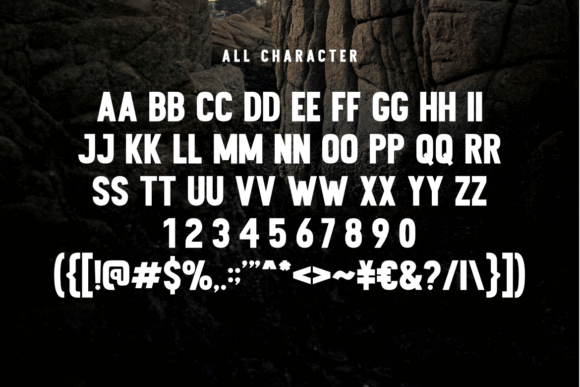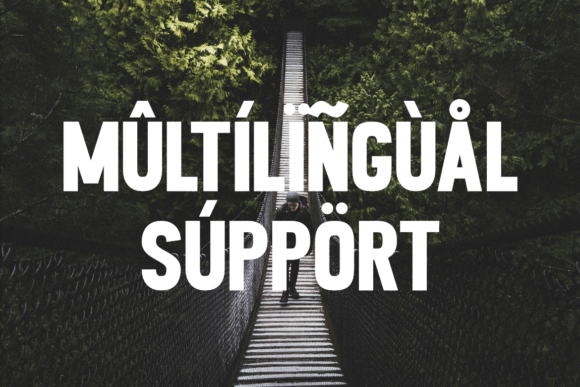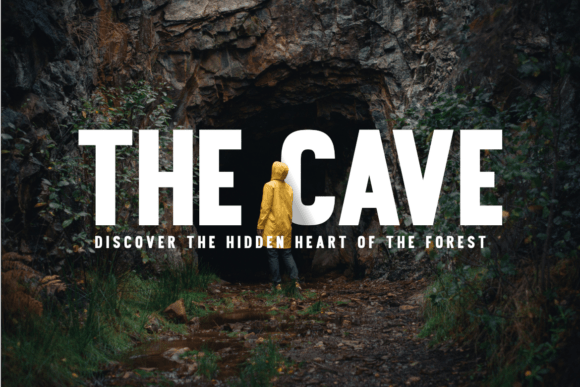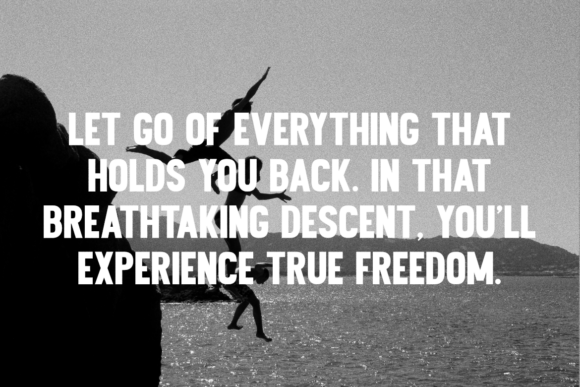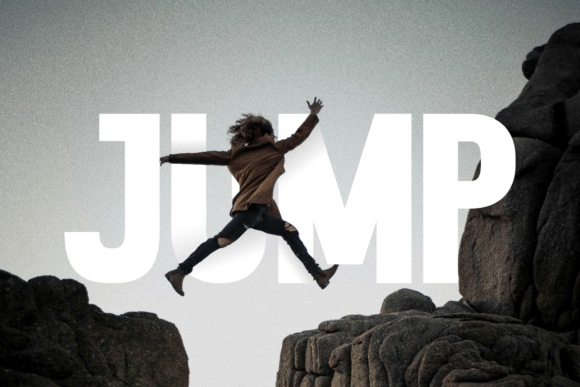
The Power of Courage: Unleashing a Modern Sans Serif Font
I’ll never forget the design project that pushed me to discover the Courage Font. I was working on a branding campaign for a fitness brand, and my client requested a bold, attention-grabbing font that would convey strength and dynamism. As I scoured the internet for the perfect typeface, I stumbled upon Courage, and it instantly resonated with me. Its robust letterforms and unwavering stability made it the perfect fit for the project. In this article, I’ll share my experience with Courage, its features, and how to make the most of it in your designs.
An Honest Review of Courage Font
What I Love About Courage ✨
- ✅ Perfect for bold statements: Courage is designed to deliver a powerful statement and command attention in all your design projects.
- ✅ Robust and dynamic: Its letterforms convey a sense of dynamism and unwavering stability, making it ideal for designs that require strength and impact.
- ✅ Versatile: Courage can be used for a wide range of design projects, from logos and posters to website headlines and social media graphics.
- ✅ Easy to read: Despite its bold presence, Courage remains highly legible, even at smaller font sizes.
- ⚠️ Limited font weights: Courage currently offers only a few font weights, which might limit its use in certain design projects that require a more subtle approach.
- ⚠️ Glyph limitations: While Courage has an impressive range of glyphs, it might not have every special character or symbol you need.
The Backstory of Courage Font
Courage Font was designed with the goal of creating a modern sans serif font that embodies strength, dynamism, and confidence. The designer aimed to craft a typeface that would inspire creativity and boldness in design projects. While the designer’s identity remains anonymous, their passion for typography and design is evident in every detail of Courage Font.
| Font Name | Courage Font |
| Author | Almairatype Studio |
Q: What is Courage Font best suited for?
A: Courage Font is perfect for designs that require strength, impact, and a bold presence, such as logos, posters, website headlines, and social media graphics.
Q: Is Courage Font easy to read?
A: Yes, despite its bold presence, Courage Font remains highly legible, even at smaller font sizes.